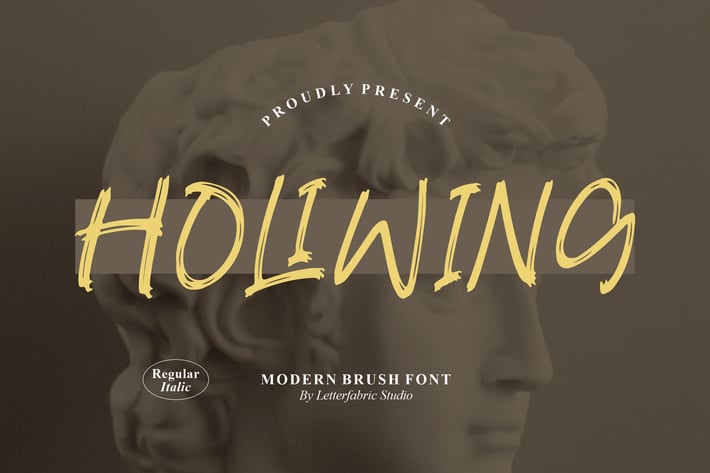
Holiwing Modern Brush Font
Holiwing is a bold and expressive modern brush font designed to bring a touch of creativity and confidence to your visual projects. Its energetic strokes and natural brush texture evoke a hand-painted feel — perfect for designs that seek authenticity and modern artistry. With both Regular and Italic styles, Holiwing adds movement and emotion to your words.
Dynamic brush lettering with organic textures
Comes with Regular & Italic styles
Balanced readability for digital and print use
Natural stroke variations for authentic hand-painted effect
Branding and logo design
Poster titles and bold typography
Editorial layouts and packaging
Fashion and creative campaigns
* Artistic quotes and social media graphics
Vivid, raw, and full of motion — Holiwing captures the essence of hand-painted expression in every stroke.